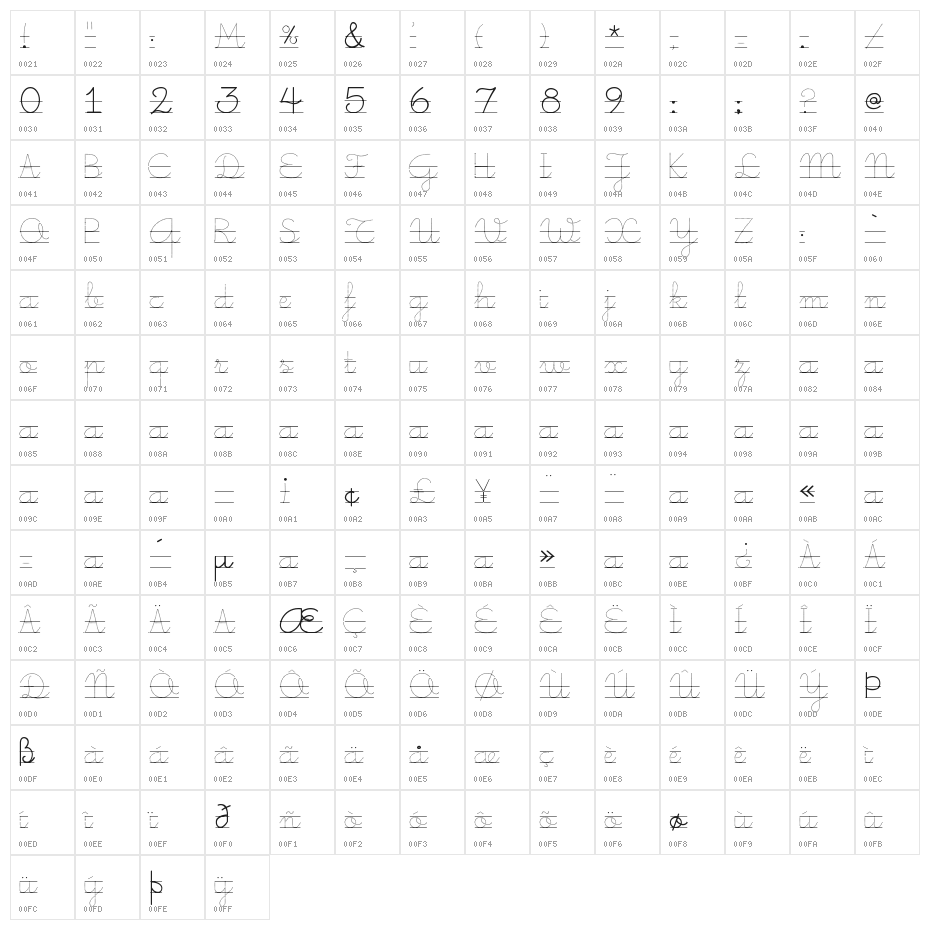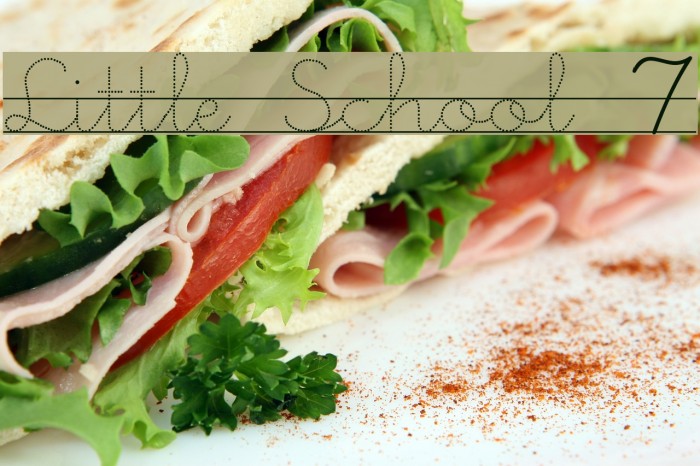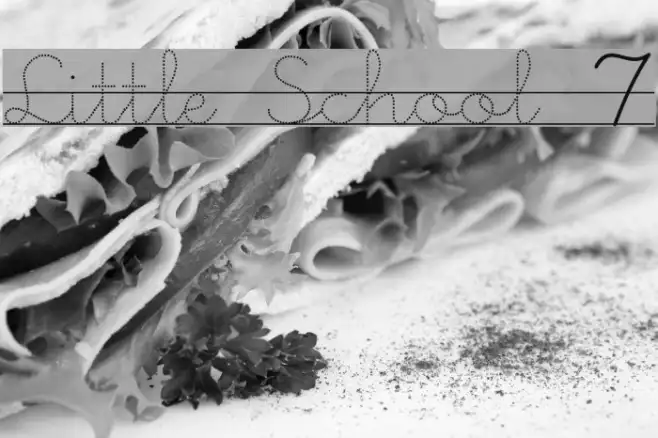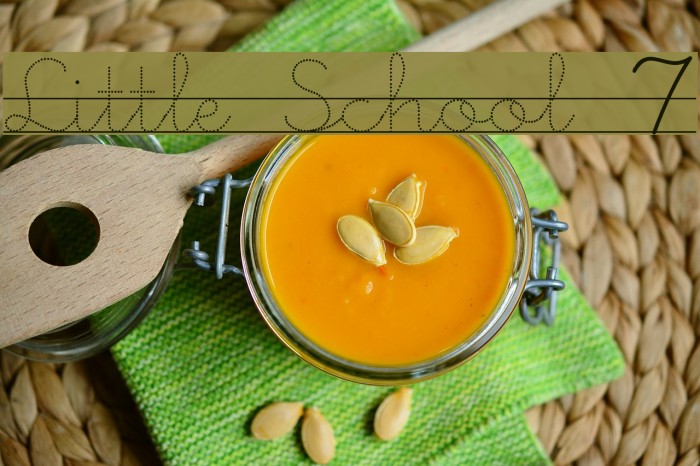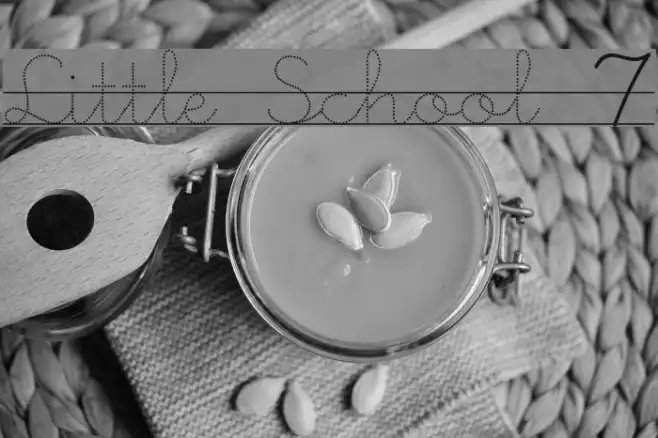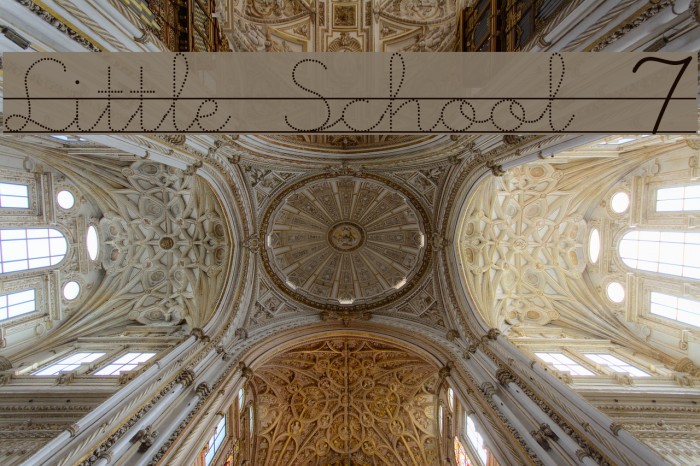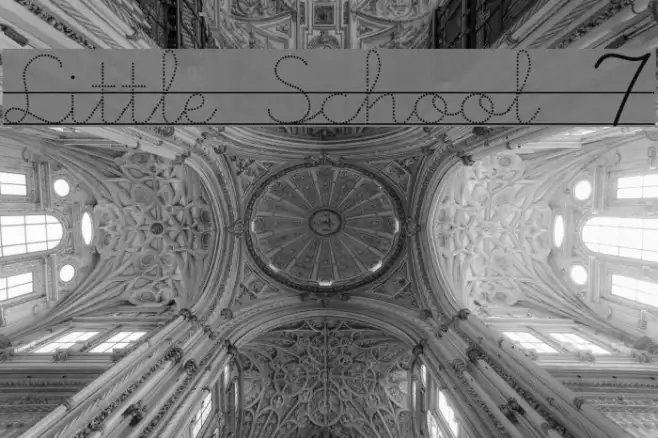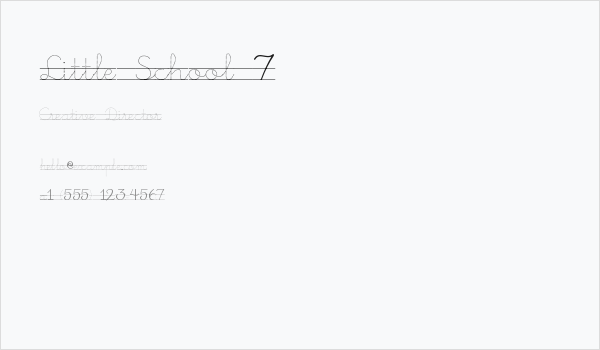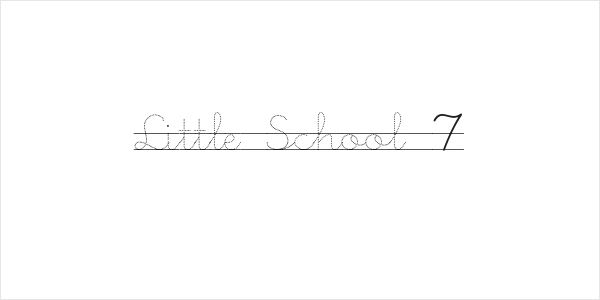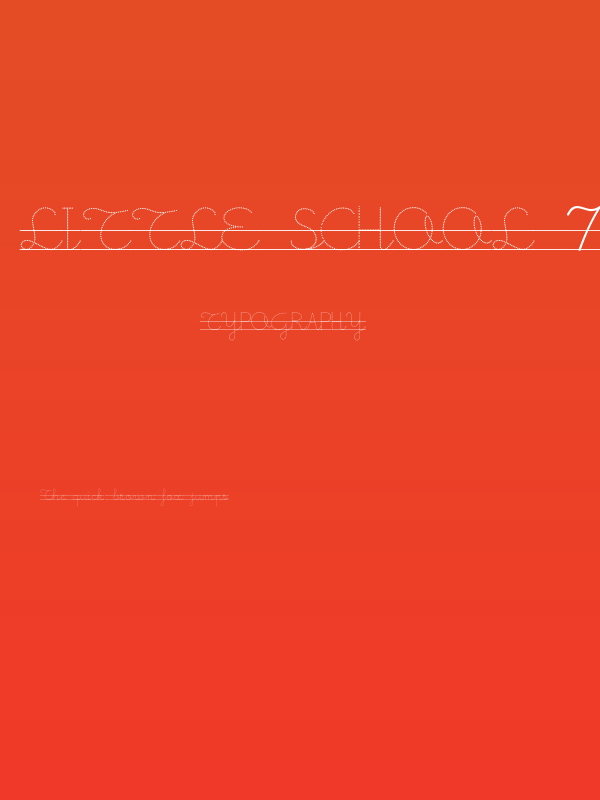
Little School 7 Font
Little School 7 Description
This font features a playful and educational style, designed to mimic the appearance of handwriting practice sheets often used in early schooling. The uppercase and lowercase letters are connected with dotted lines, guiding the formation of each character. The numerals are clear and distinct, with a clean, rounded appearance. Special characters are included, maintaining the same educational theme. The overall look is approachable and friendly, making it ideal for educational materials aimed at young learners.
Overall StyleEducational, Playful
Use CaseEducational materials, Children's books
Proposed ProjectsIdeal for educational materials, children's books, and learning apps focused on handwriting skills.